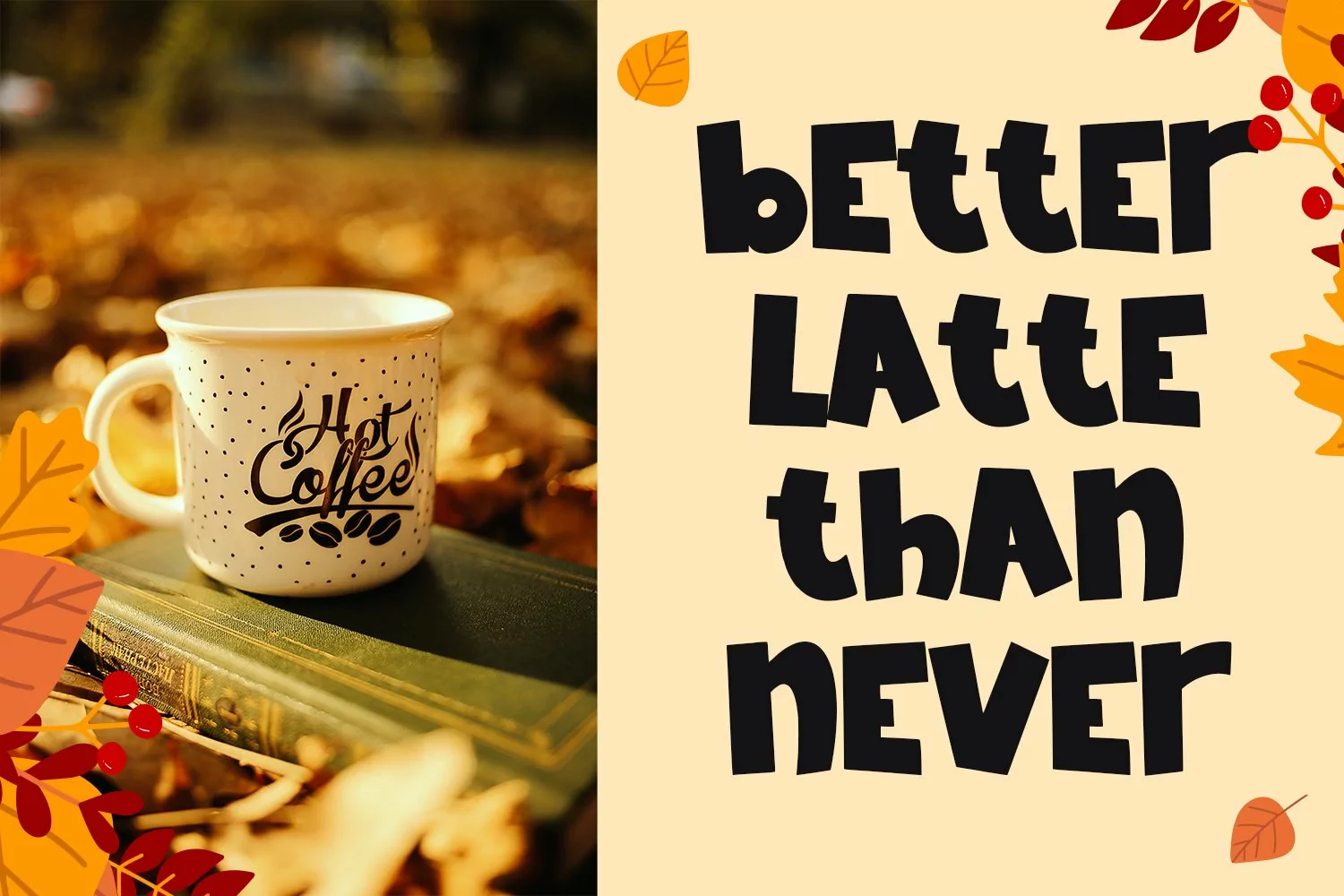
Autumn Falling - Playfull displasy font that contain lowercase, uppercase, symbol, and also support multi language. There’s a lot ligatures in this font. This Font also comes with ligatures, alternates and many more. this font suitable for fashion, branding, catalog and other design what you want.
Autumn Falling